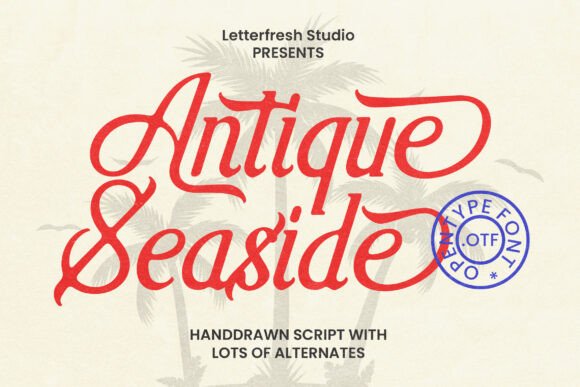
Antique Seaside: A Vintage Font for Authentic Design
Capturing the Spirit of the Coast
You’re searching for a typeface that feels lived-in, weathered, and full of character. Something that doesn’t just sit on a page but tells a story. Enter Antique Seaside, a bold display font that channels the rugged charm of coastal life and vintage signage. This isn’t a delicate, modern font with clean lines. Instead, its rough edges and uneven texture give it an authentic, handcrafted quality that feels immediately nostalgic and approachable. The personality of Antique Seaside is one of warmth, adventure, and timeless appeal. It’s a creative font that doesn’t just display words; it evokes a feeling—whether that’s the salty air of a harbor, the thrill of a road trip, or the comfort of a well-loved bookshop.
Where This Typeface Truly Shines
Understanding a font’s ideal context is key to using it effectively. Antique Seaside isn’t a workhorse for body text; it’s a specialist. Its strength lies in applications where personality and impact are paramount. Think of it as the anchor of your visual hierarchy, used for headlines, logos, and key phrases that need to grab attention.
- Logo Design & Brand Identity: For brands rooted in craftsmanship, authenticity, or a retro vibe—think coffee roasters, craft breweries, outdoor apparel, or local bakeries—Antique Seaside can form the core of a memorable logo. It instantly communicates a down-to-earth, quality-focused brand perception.
- Poster & Editorial Design: This font is a natural for event posters, magazine covers, and book titles. Its bold presence ensures legibility from a distance, making it perfect for music festival posters, vintage market flyers, or the cover of a travel memoir.
- Packaging & Labels: On a product label, Antique Seaside can add a layer of artisanal credibility. It works beautifully for sauces, jams, specialty foods, or craft spirits, suggesting a recipe with history or a process with care.
- Digital & Social Media: In the fast-scrolling world of social media, a distinctive display font can stop the thumb. Use it for YouTube video thumbnails, Instagram quote graphics, or blog post headers to create visual consistency and stand out in a crowded feed.
- Personal Projects & Crafts: For hobbyists and crafters, this font is a gem. It’s ideal for creating custom t-shirts, tote bags, wedding invitations with a rustic theme, or personalized home decor prints.
Making It Work: Practical Guidance for Your Project
Choosing the right font is a strategic decision. Here’s how to evaluate and implement Antique Seaside in your work.
Evaluating the Fit
Before you commit, ask yourself: Does the project’s tone align with the font’s vintage, slightly rugged personality? A sleek tech startup might find it at odds with their brand, while a heritage-focused brand or a creative blog would be a perfect match. Always test it with your specific copy. Does the word "Adventure" look as compelling as the word "Serenity"? The rough edges are part of its charm, but they should complement, not clash with, your message.
The Art of Font Pairing
A display font like Antique Seaside rarely works alone. Its bold, textured nature demands a cleaner counterpart for body text to ensure readability and create visual contrast. A classic, neutral sans serif font or a clean serif font often makes an excellent partner. For example, pair Antique Seaside for headlines with a font like Lora or Open Sans for paragraphs. This creates a clear hierarchy: the display font draws the eye, while the body font delivers the information comfortably. Avoid pairing it with other heavily stylized fonts like ornate script fonts or busy handwritten fonts, which can create visual chaos.
Understanding the Full Package
When you invest in a premium font like this, you’re often getting more than just the basic letters. Check the font’s features for stylistic alternates and ligatures. These are different versions of certain letters (like a unique ‘R’ or ‘E’) that can add flair and customization to your logo design or headline. Using an alternate can transform the look from standard to stunning, giving you that extra edge in your creative font toolkit.
While beautiful, textured fonts can pose readability challenges at very small sizes. Use Antique Seaside for larger text—headlines, subheads, pull quotes. For small captions or legal text, switch to your paired body font. Finally, always check the license. If you’re using it for a client project, merchandise for sale, or a commercial website, you need a commercial font license. This ensures you’re legally covered and respects the work of the type designer. It’s a small step that protects your brand identity and supports the creators of the design assets we rely on.
In a world saturated with generic digital typefaces, Antique Seaside offers a breath of fresh, salty air. It’s a tool for storytellers, entrepreneurs, and makers who want their projects to feel genuine and memorable. By understanding its personality, applying it strategically, and pairing it wisely, you can leverage this vintage font to create designs that don’t just look great—they feel real. Let it be the cornerstone of your next packaging design, the headline of your most-read blog post, or the face of a brand that stands for something authentic.